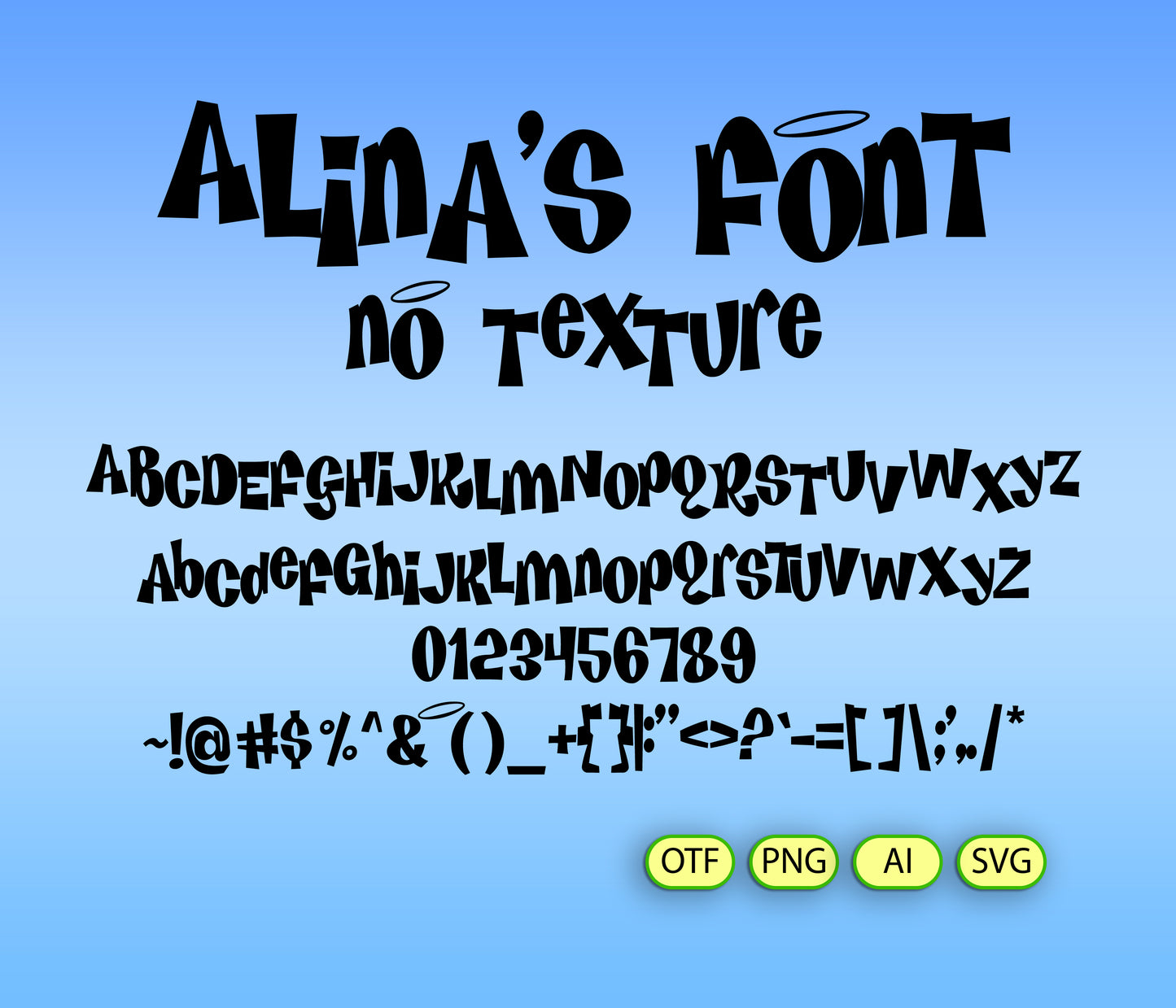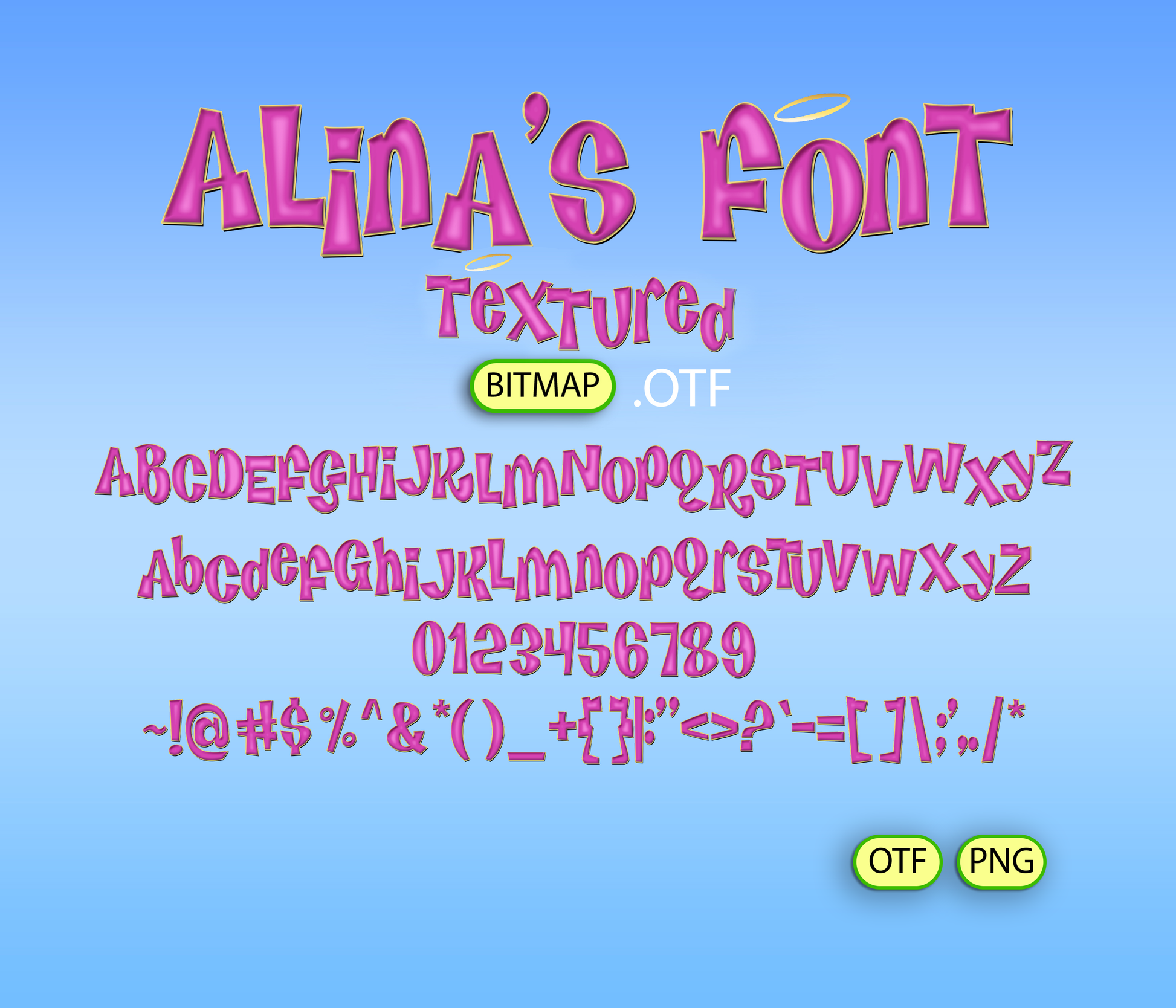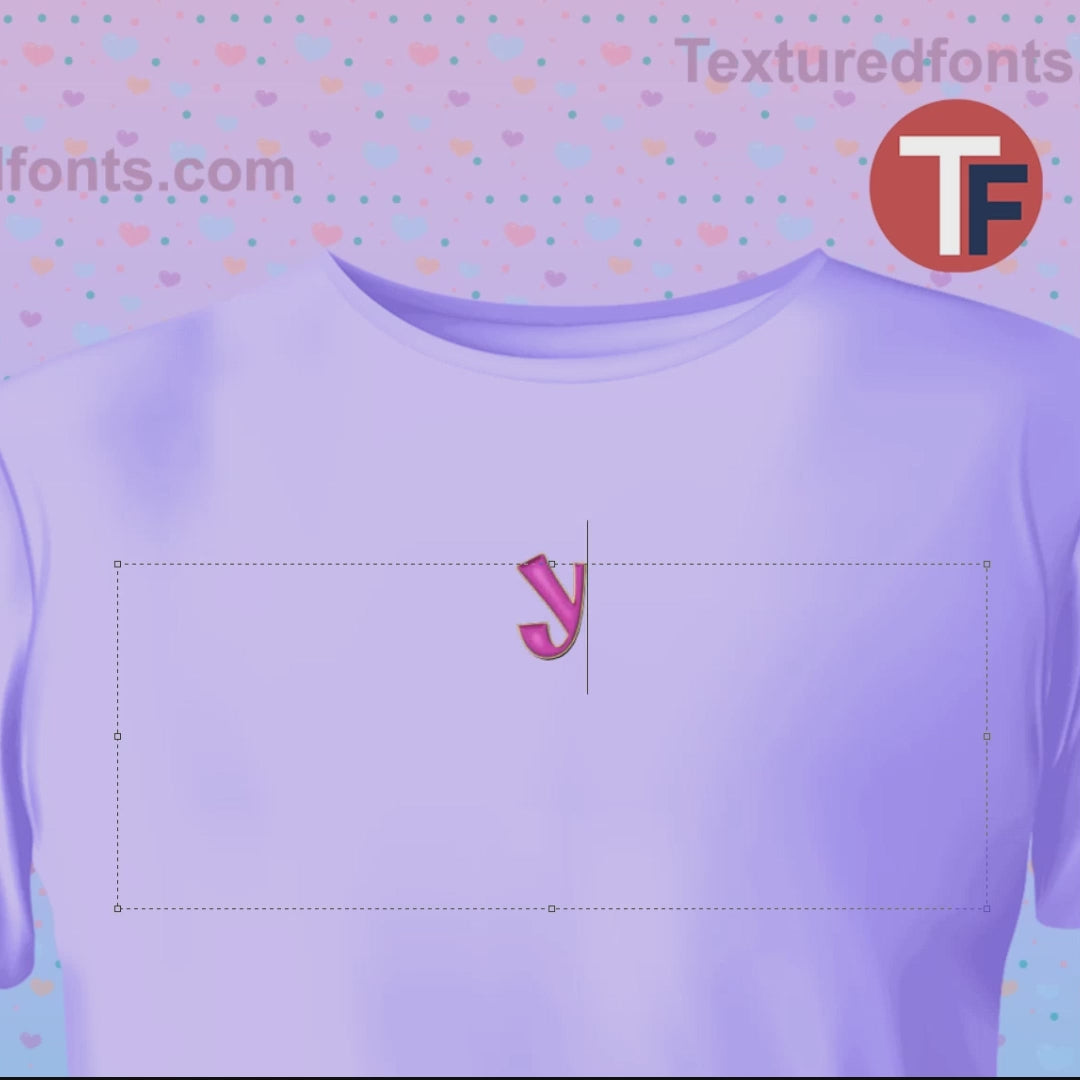
Retro Fashionista Font Textured
Retro Fashionista Font
Step into the glamorous world of retro fashion with our exclusive font, capturing the essence of iconic, fashion-forward characters. This font mirrors the bold and expressive style seen in fashion merchandise, ensuring your designs reflect their iconic, fashion-forward aesthetic. Ideal for fans and creators, our font lets you make a statement that's as bold as the characters themselves.
Crafted meticulously, our Retro Fashionista font includes a comprehensive character set with numbers and special symbols, allowing for versatile design options. Each letter embodies the playful yet daring spirit of the fashion world, perfect for projects that need a touch of glamour and attitude.
Versatile Applications and Easy Customization